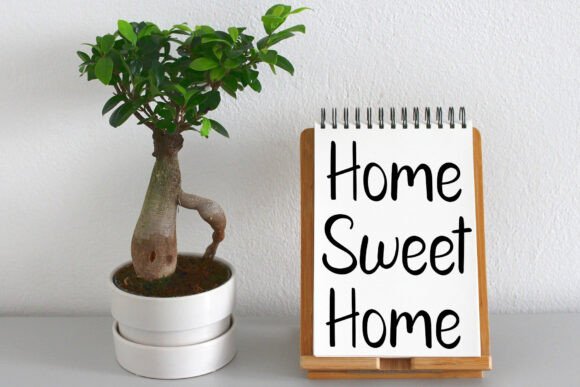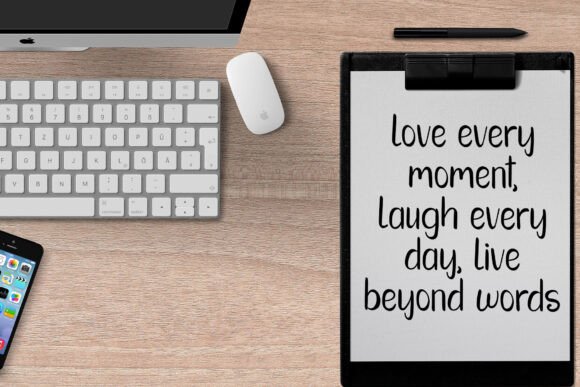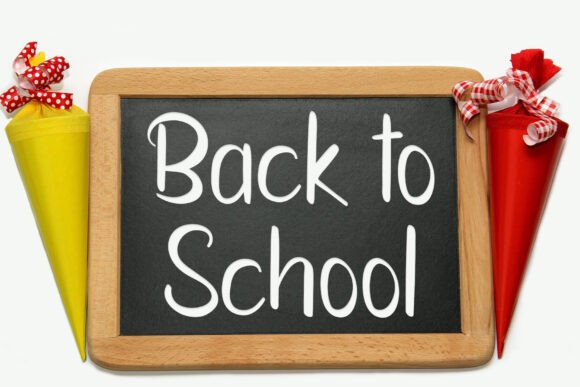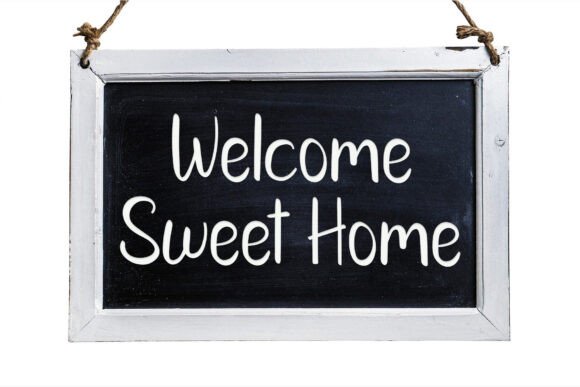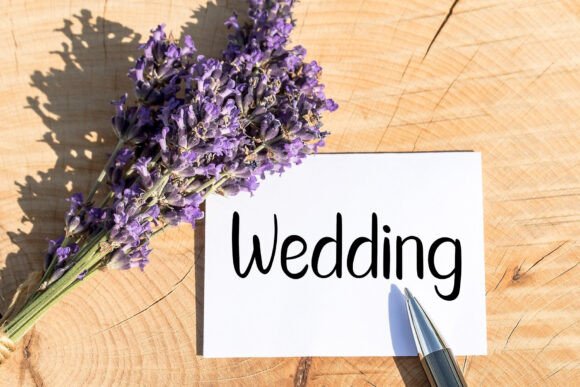
Introduction to Rumania Font
Rumania is a unique and elegant font specially designed just for you.
This font is made with a professional hand touch and is perfect for your projects This font is very suitable for use in your work projects, all greeting cards from wedding invitation cards, birthdays, all types of parties.
Key Features of Rumania Font
Why Choose Rumania Font?
Rumania Font offers exceptional quality and versatility, making it a valuable addition to your design toolkit. Whether you’re creating for personal projects or commercial use, Rumania Font delivers professional results.